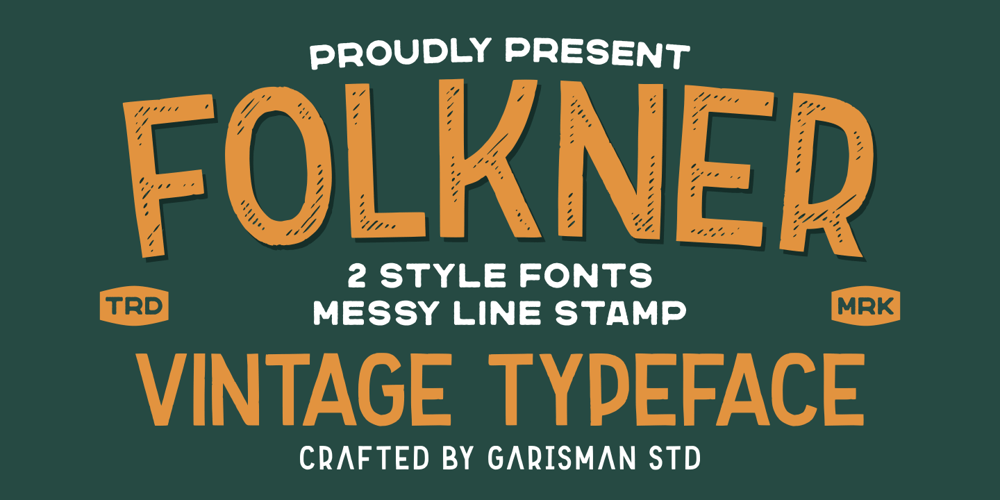
Folkner
Folkner font
Folkner Font Family was designed by Risman Ginarwan and published by Garisman Studio. Folkner contains 2 styles and family package options. Folkner born from an inspiring vintage display. This font gives a feel of a vintage, classic, old, and based on handmade. With messy line stamp touch in Folkner Stamp give you a vintage taste. Already PUA Encoded and I think this font is perfect for people looking for vintage aesthetic or logo-type. Suitable for any graphic designs such as branding materials, t-shirt, print, business cards, logo, poster, t-shirt, photography, quotes .etc.